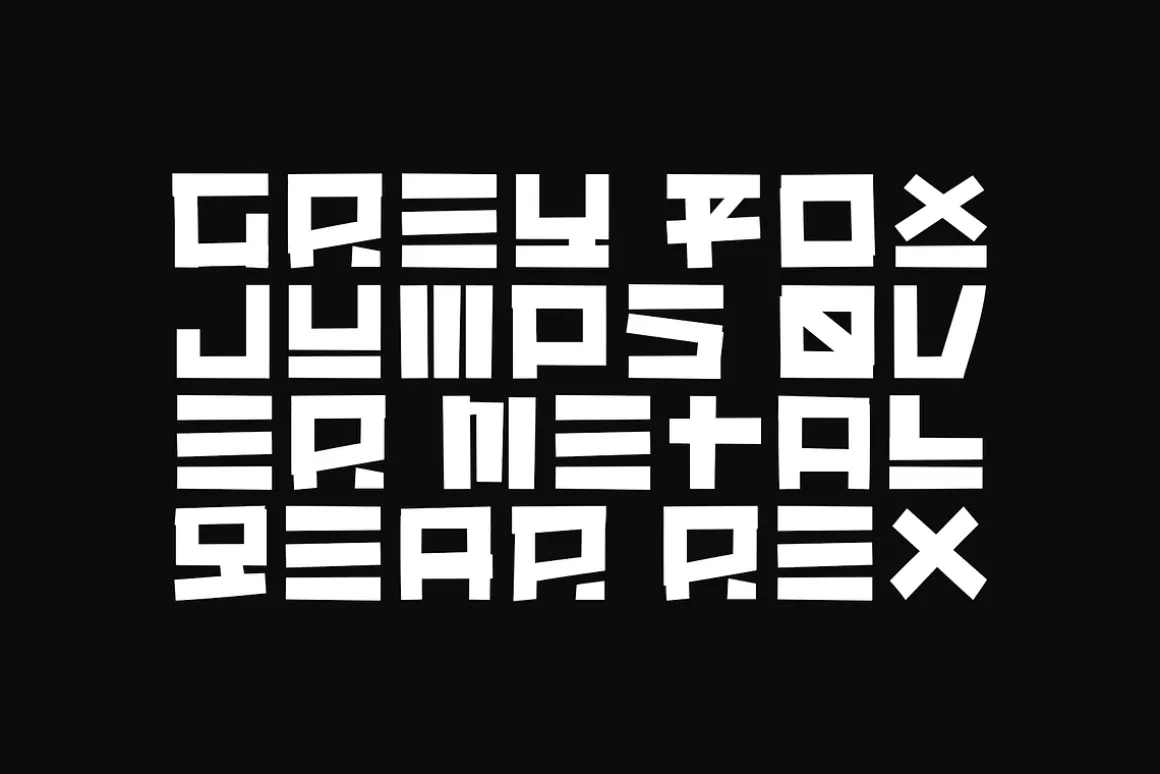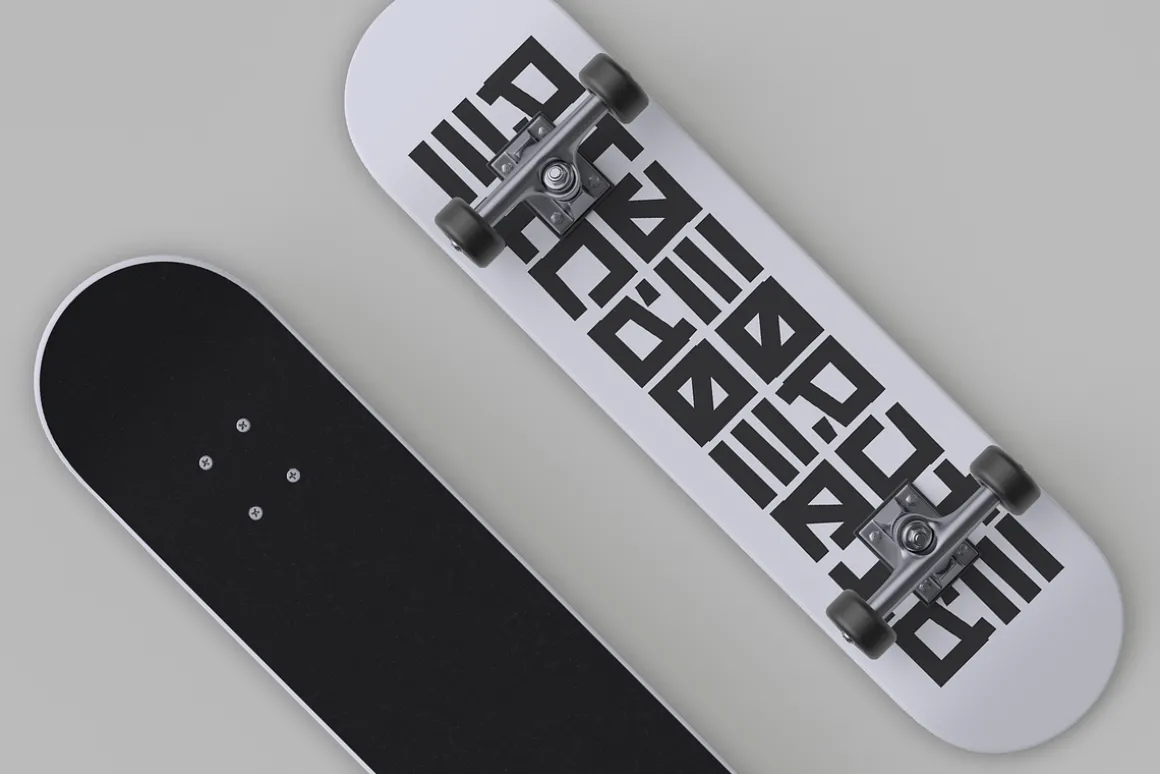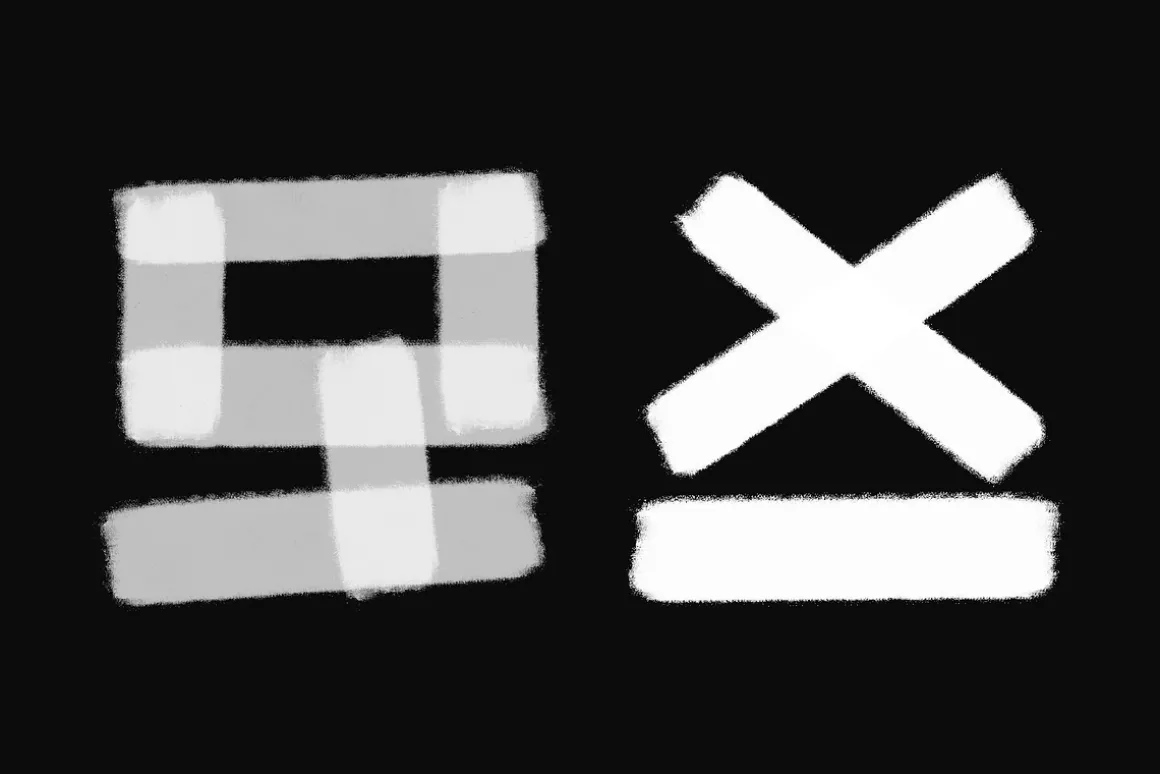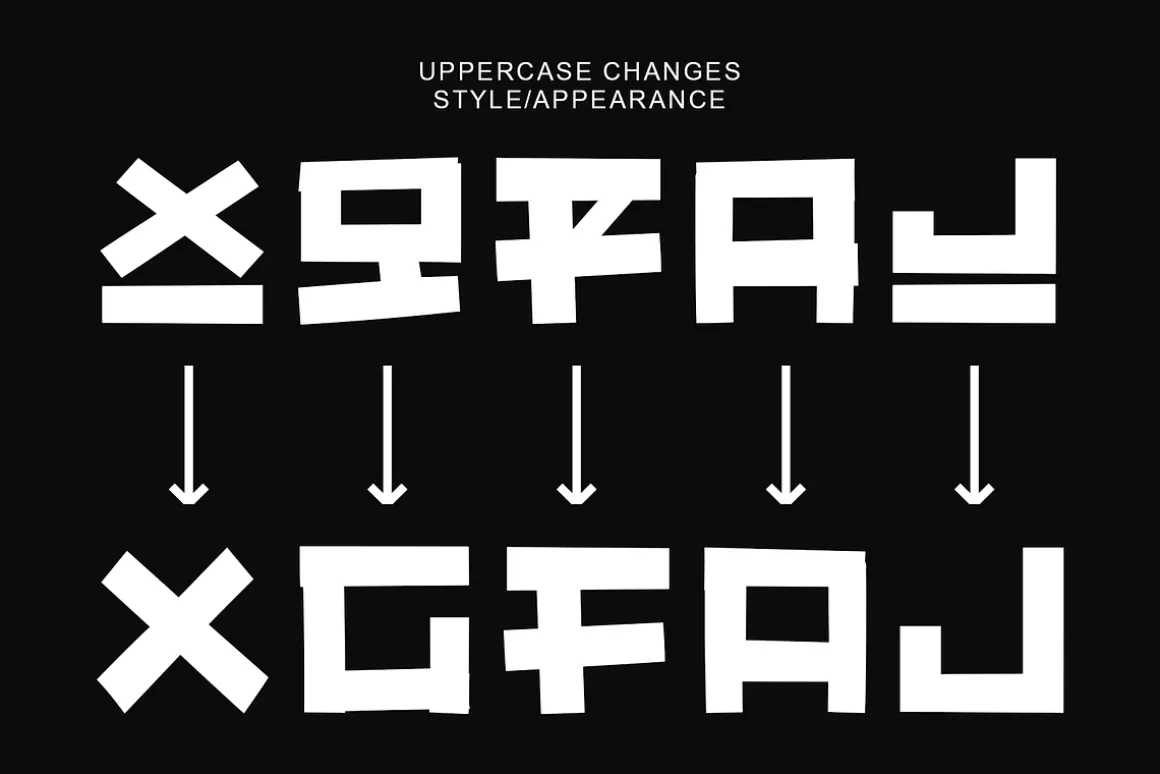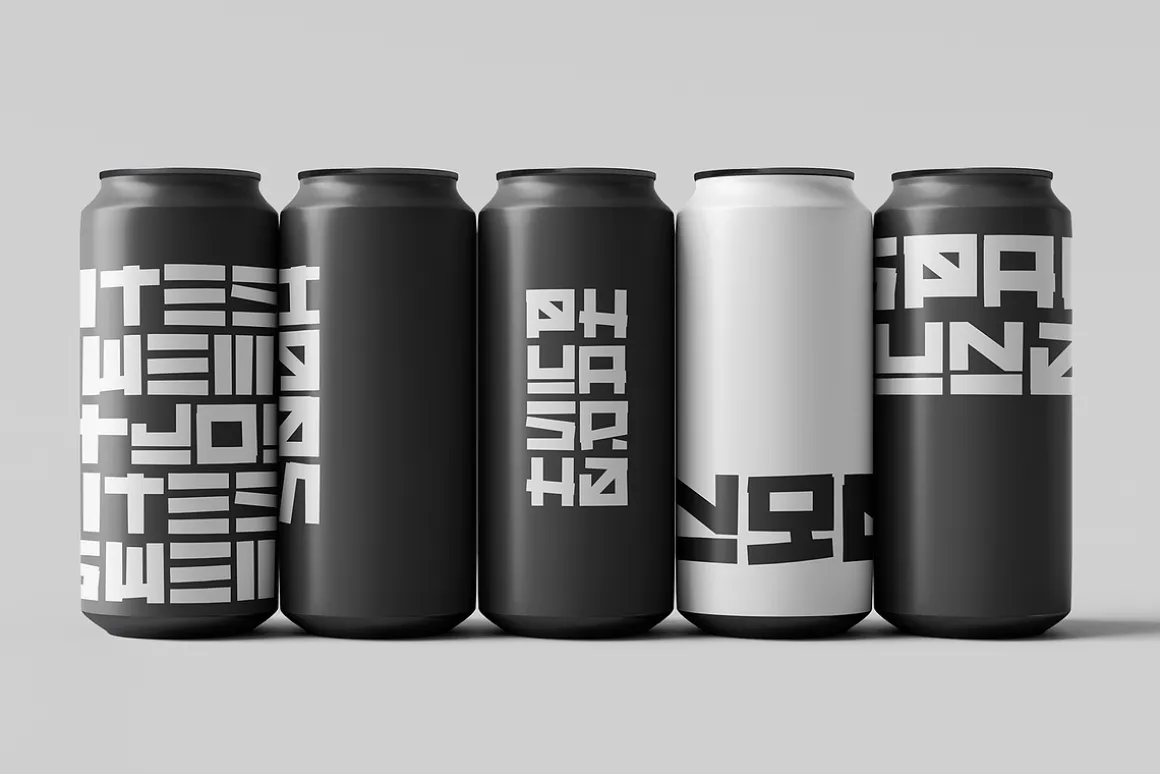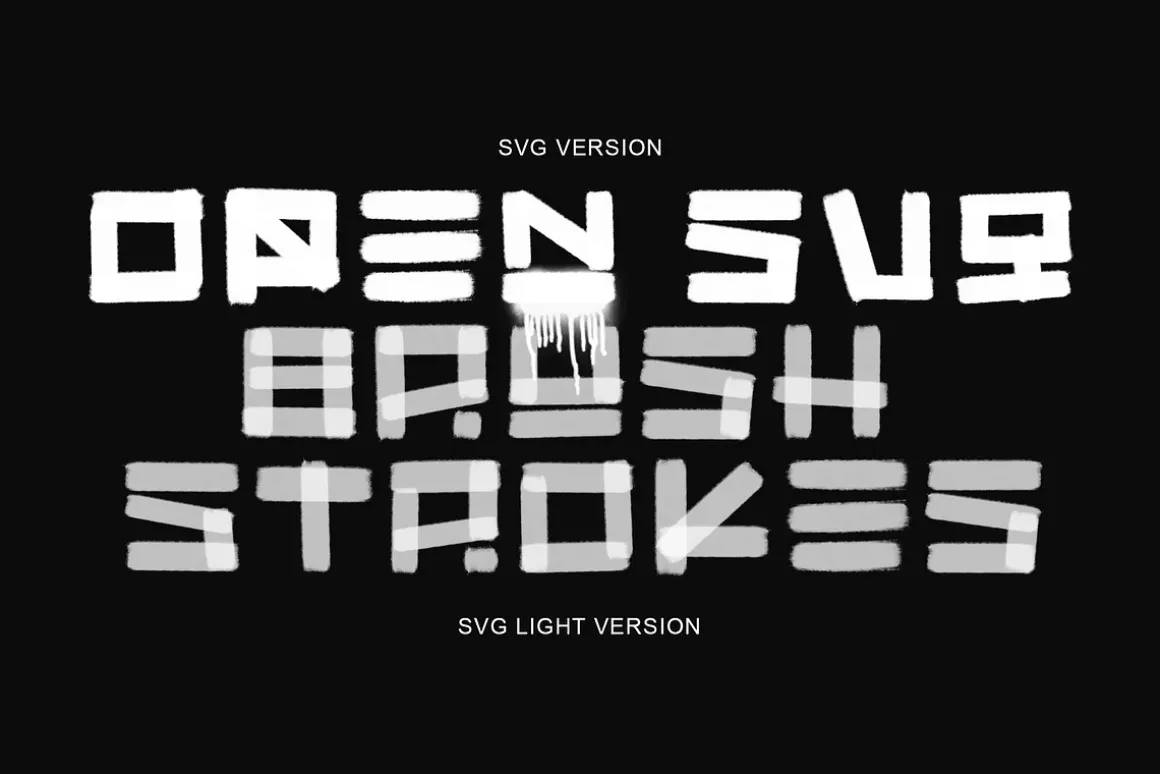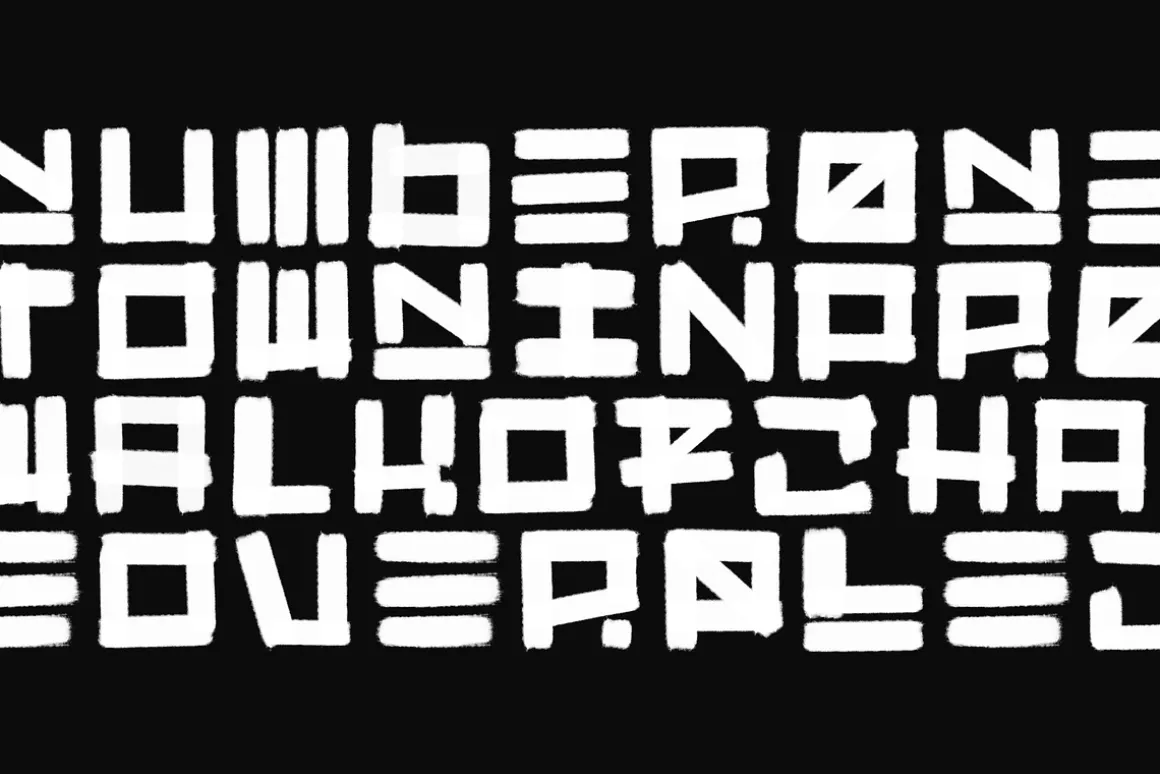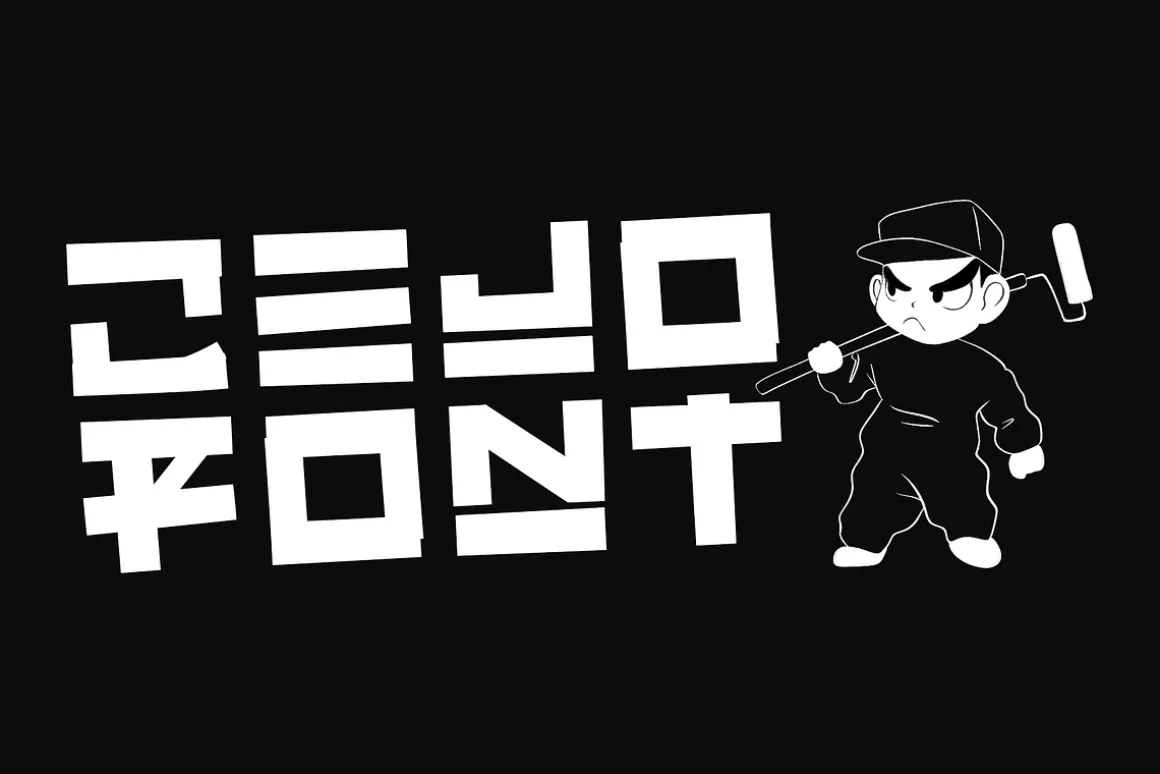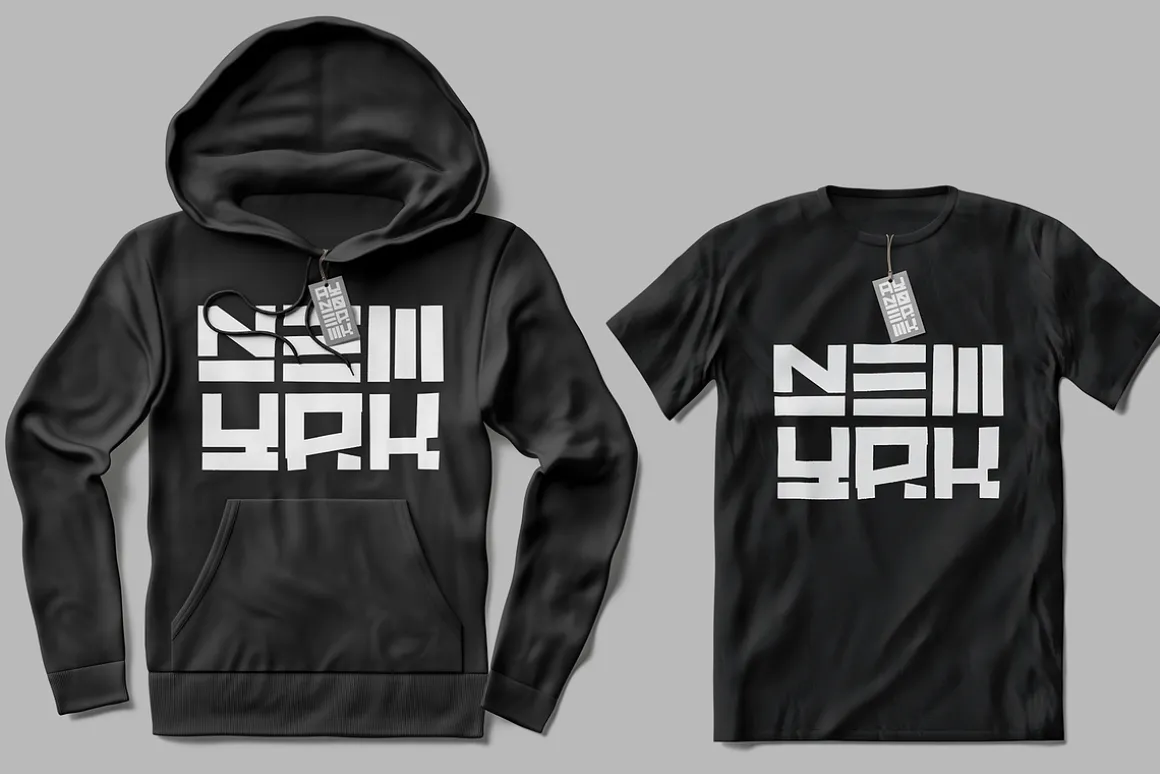
“CEJO” is highly inspired by roller paint graffiti, hieroglyphs and calligraphy. Font is “monospaced” – each letter is roughly simplified to a square figure which gives you an ability to create blocky patterns with words matching in length and write both vertically and horizontally.
Upper and Lower cases do not match. Some letters have a completely unique design depending on the letter case you are using, and the matching ones differ in appearance to make double-letter words look more natural.
“CEJO” has a regular version, SVG brush version and SVG light brush version.SVG versions are available both in open SVG font format and raster(PSDs, PNGs).